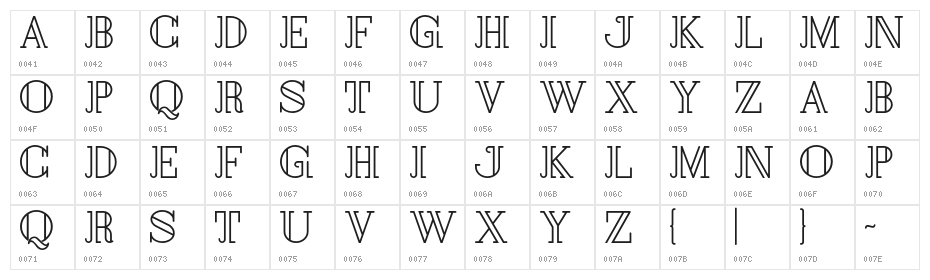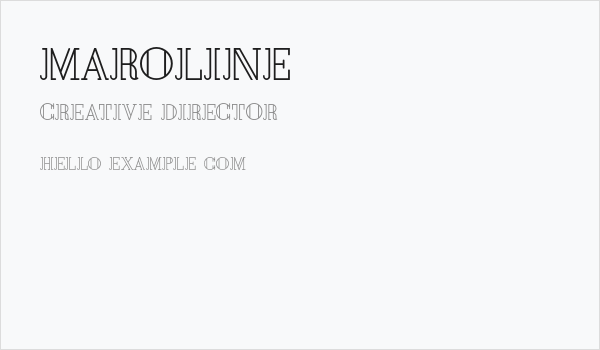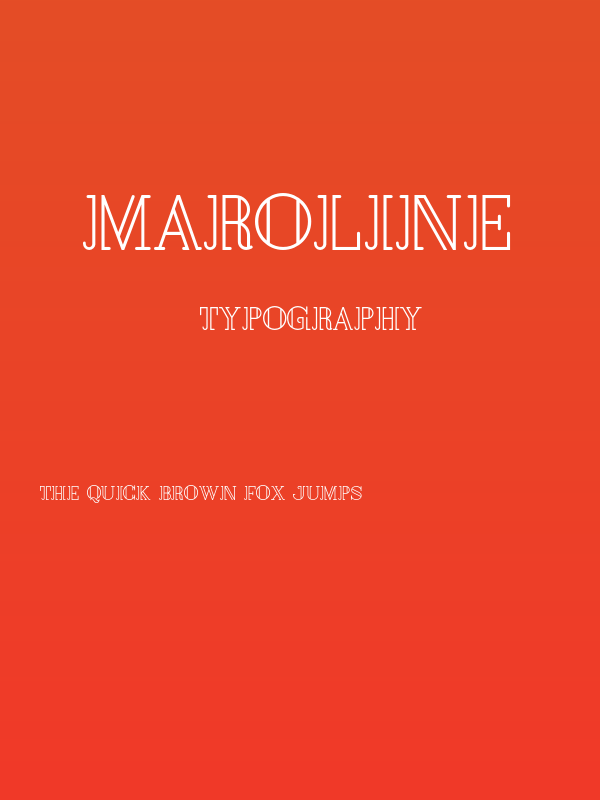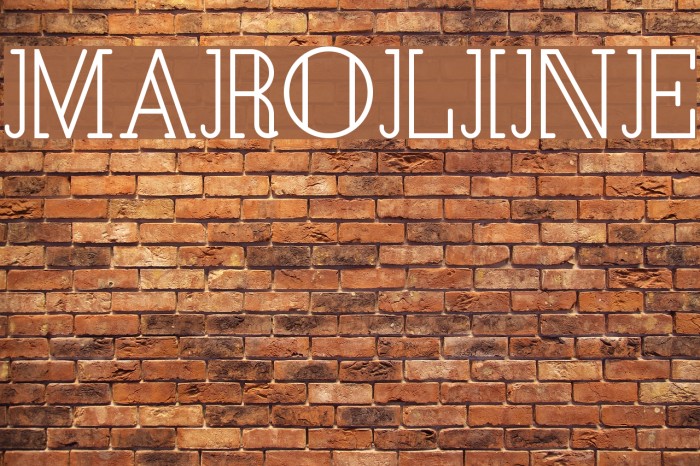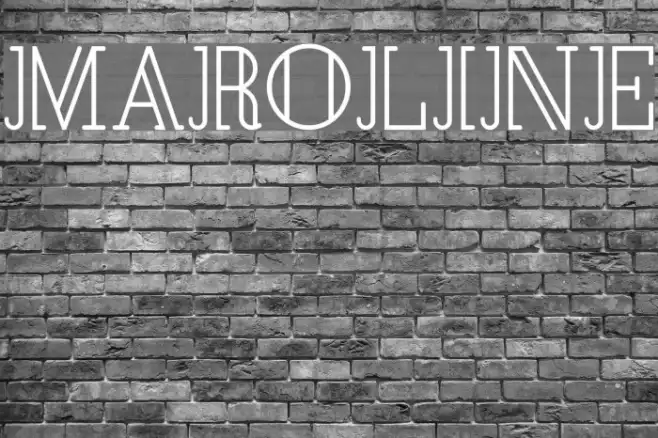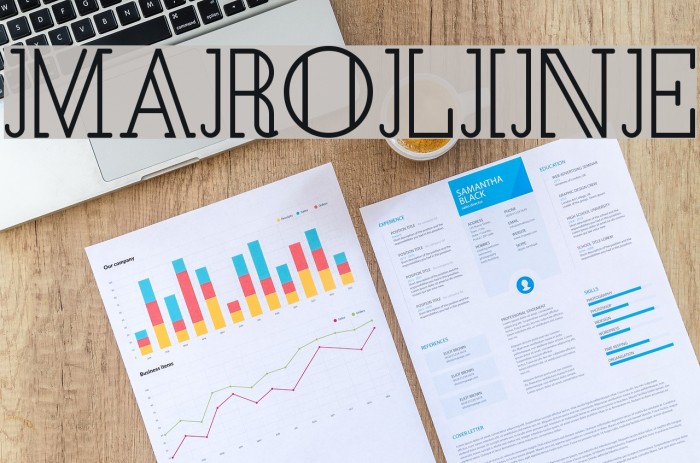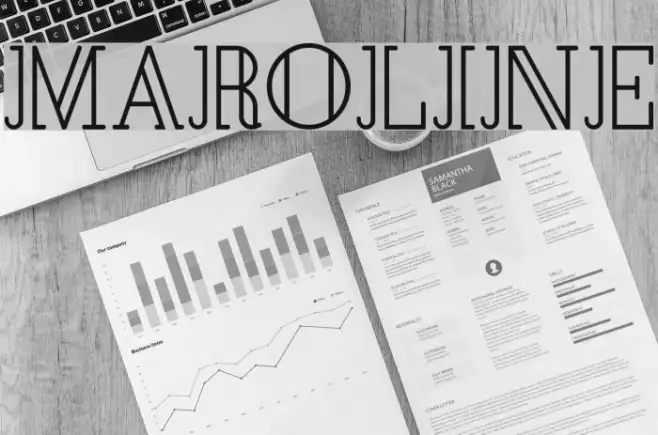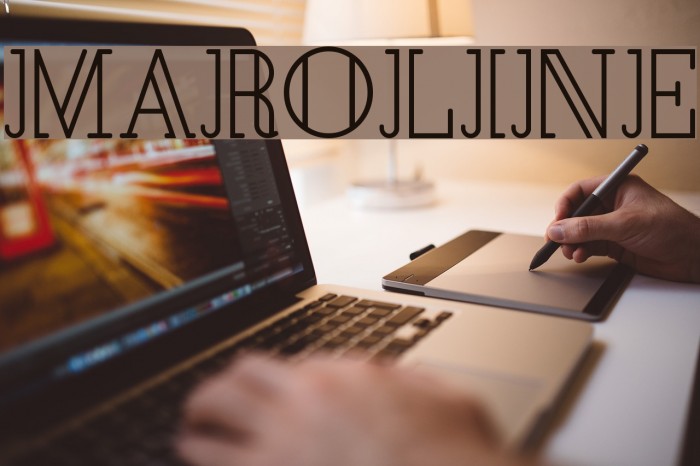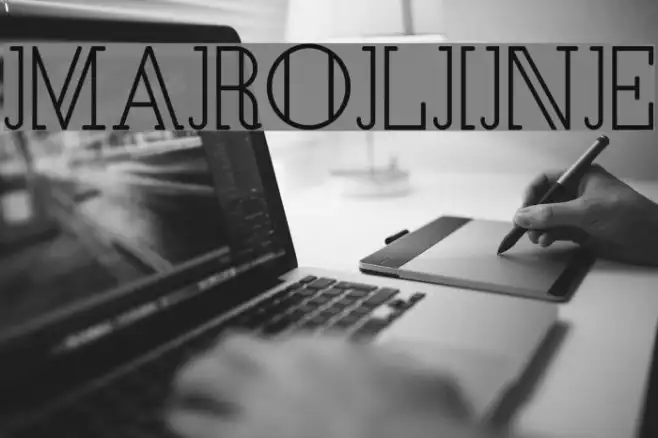
Maroline Font
Maroline Description
This font features a unique blend of classic serif elements with a modern twist. The characters are defined by their bold, structured lines and distinctive curves, particularly noticeable in the letters B, Q, and R. The font maintains a consistent weight throughout, providing a sense of balance and uniformity. The serifs are pronounced, adding an element of sophistication and elegance. This typeface is well-suited for projects that require a touch of class and readability, making it ideal for both digital and print media.
| Proposed Projects | Ideal for branding, editorial design, book covers, and formal invitations. |